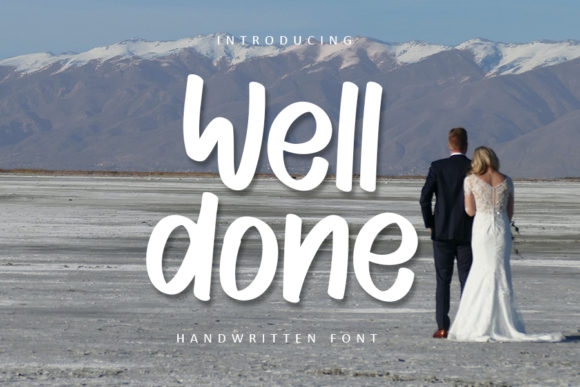
Well Done Font
Introducing Well-Done: A Handcrafted Masterpiece for Your Creative Endeavors
In the vast world of typography, certain fonts stand apart, not only conveying words but also enchanting imaginations. Well-Done, a stunning script creation from FreshTypeINK, is such a font, captivating hearts with its graceful strokes and timeless allure. Crafted with a delicate balance of elegance and playfulness, Well-Done embodies the very essence of modern aesthetics.
With its sweeping lines, subtle curves, and meticulously crafted characters, Well-Done evokes a nostalgic charm that effortlessly adds a touch of sophistication to your designs. Whether adorning wedding invitations, adorning logos, or gracing the pages of your latest literary masterpiece, Well-Done leaves an indelible impression, transforming your words into works of art.
But Well-Done's versatility extends far beyond traditional confines. Unleash your creativity and explore the boundless possibilities that await. Adorn t-shirts with witty quips or motivational quotes, let Well-Done narrate the tale of your brand with letterheads and signage, or craft labels that exude an air of exclusivity.
For those seeking a touch of whimsy, Well-Done's playful character lends a captivating allure to news, invigorates your messages with fresh energy, and transforms mundane badges into conversation starters.
And oh, did we mention Well-Done's adaptability to the digital age? Create eye-catching posts that demand attention, craft headers that exude confidence, or envision your website's call-to-actions adorned with Well-Done's eloquent strokes.
At Well-Done, we believe in the transformative power of typography. Each character, lovingly crafted with a keen attention to detail, is a testament to our commitment to artistic expression. Let Well-Done ignite your imagination and allow your creativity to flourish.